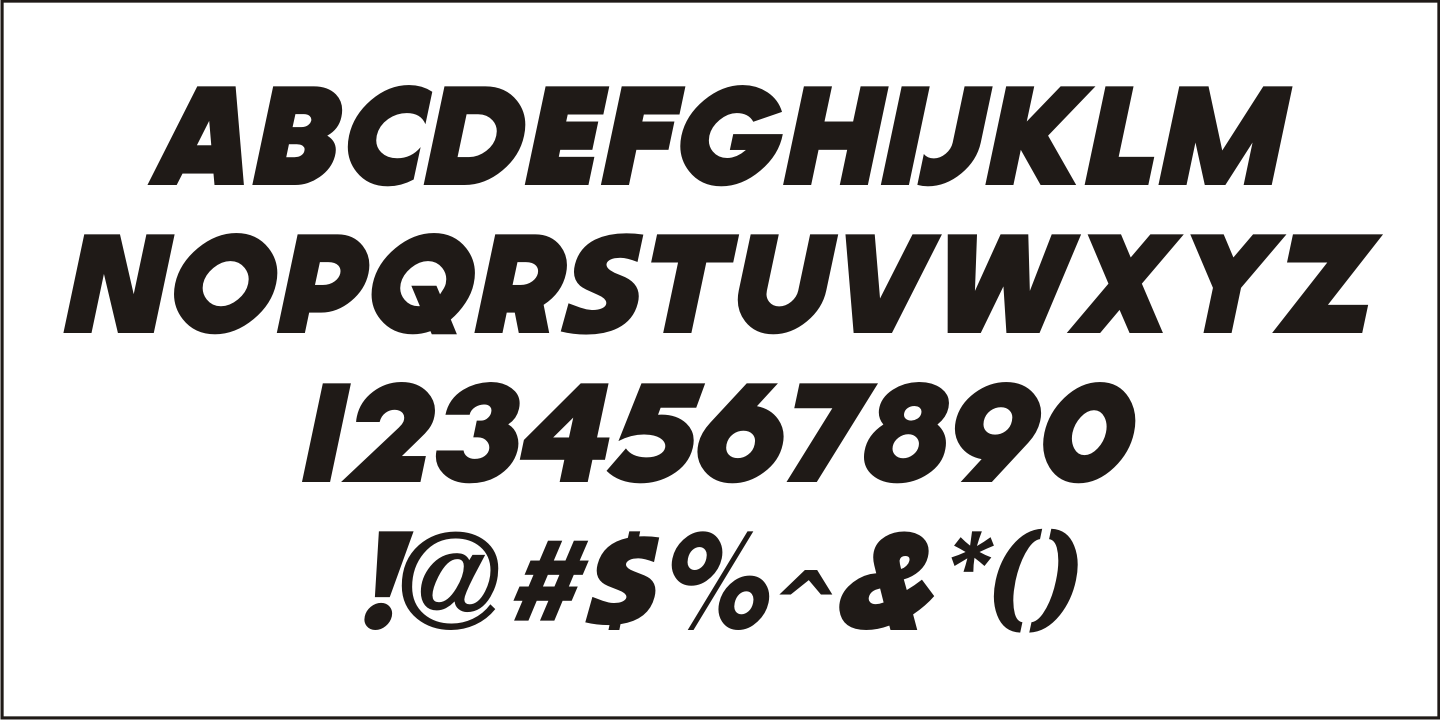
Intermediate JNL Font Free Download is a vintage-inspired sans-serif typeface that echoes the utilitarian charm of mid-20th-century office signage and instructional design. Please note that you must purchase this font for commercial use. It is available for free download for personal and testing purposes only.
You can use Intermediate JNL Font in retro-themed branding, old-school posters, nostalgic packaging, instructional manuals, museum exhibit graphics, educational materials, or classic film title designs. It brings back that orderly, practical vibe from a time when typography had a job to do — and did it well.
What makes Intermediate JNL so exciting is its disciplined structure paired with nostalgic flair. It’s clean but not sterile, strong but not overbearing. Its retro authenticity gives your work credibility and character, especially when aiming for designs rooted in history or tradition.
The Intermediate JNL Font family features styles like Intermediate JNL Regular, Intermediate JNL Oblique, and Intermediate JNL Bold, giving you just enough typographic range while preserving that mid-century simplicity.
If you're designing something that calls for a clean vintage look with professional clarity, Intermediate JNL Font Free Download is a smart and stylish option. Download it today and give your project that classic instructional edge from a bygone era — precise, practical, and full of personality.